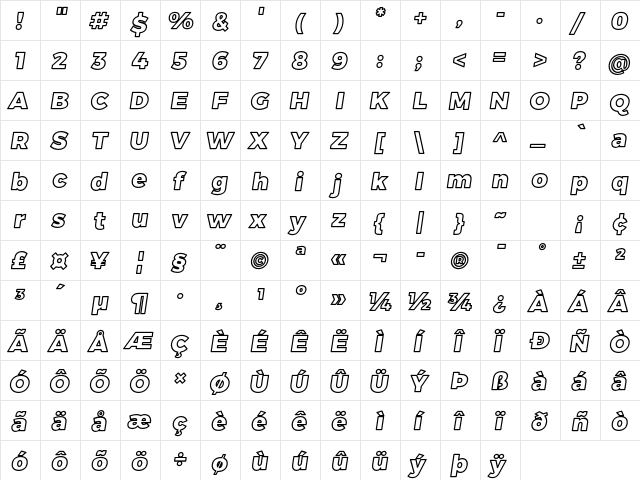
Trueno Black Outline Italic
| Foundry | Julieta Ulanovsky |
| Designer | Julieta Ulanovsky |
Design Context for Trueno Typeface
Trueno brings ornamental detail and strong personality to headlines and identities, where visual impact matters more than quiet functionality. The dynamic lean of this cut emphasises speed and emphasis in any layout.
Font Pairing: Pair with a clean neutral sans-serif for body copy to let Trueno's character lead without overwhelming the composition.
Pro Tip: Treat Trueno as the centrepiece of your typographic hierarchy. One strong heading set in a decorative face can carry an entire layout.